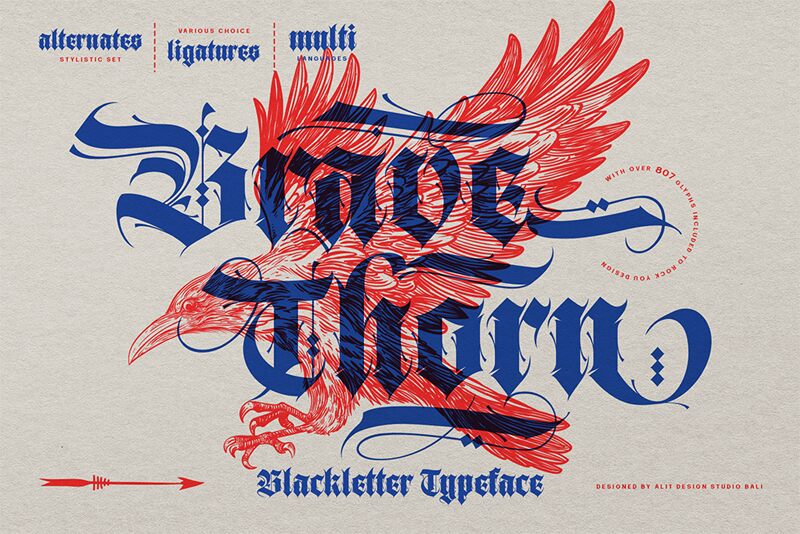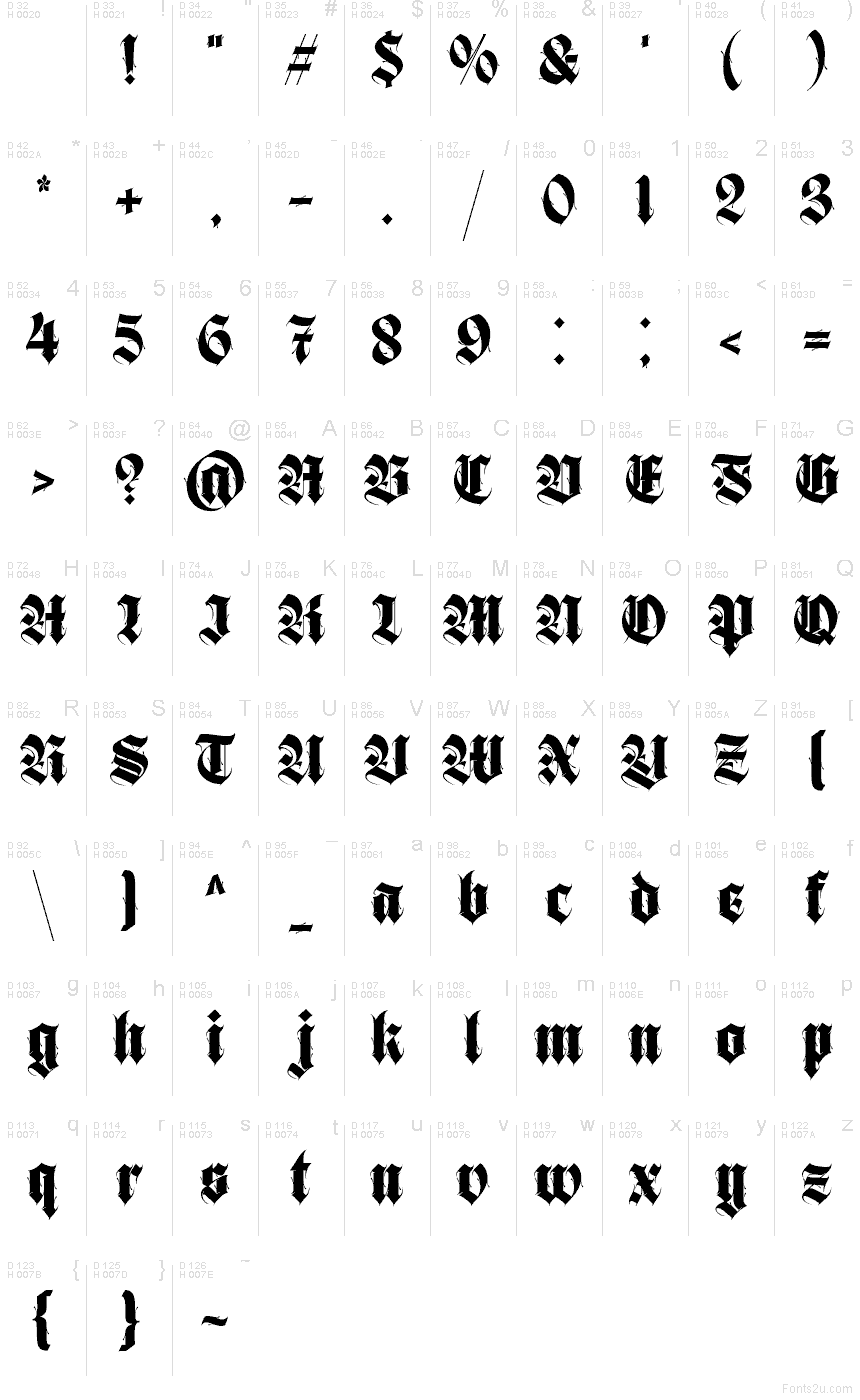
Brave Thorn Regular
Brave Thorn font by Alit Design is a free gothic medieval typeface with the weight and grit of carved stone. Heavy, ink-black strokes lock together into tight word shapes, while the thorn-like spikes and sharp internal angles give it a dangerous, ceremonial feel. It reads like a battle standard or an ancient oath, instantly pulling the eye and setting a dark, heroic mood.
Using Brave Thorn, you can brand metal bands, dark fantasy games, tattoo studios, occult zines, festival posters, or medieval-themed bars with one unmistakable voice. This free font shines at large sizes, where its dense texture and ornate cuts stay crisp and legible. Pair it with a simple geometric sans for body text to keep layouts balanced and modern around its gothic drama.